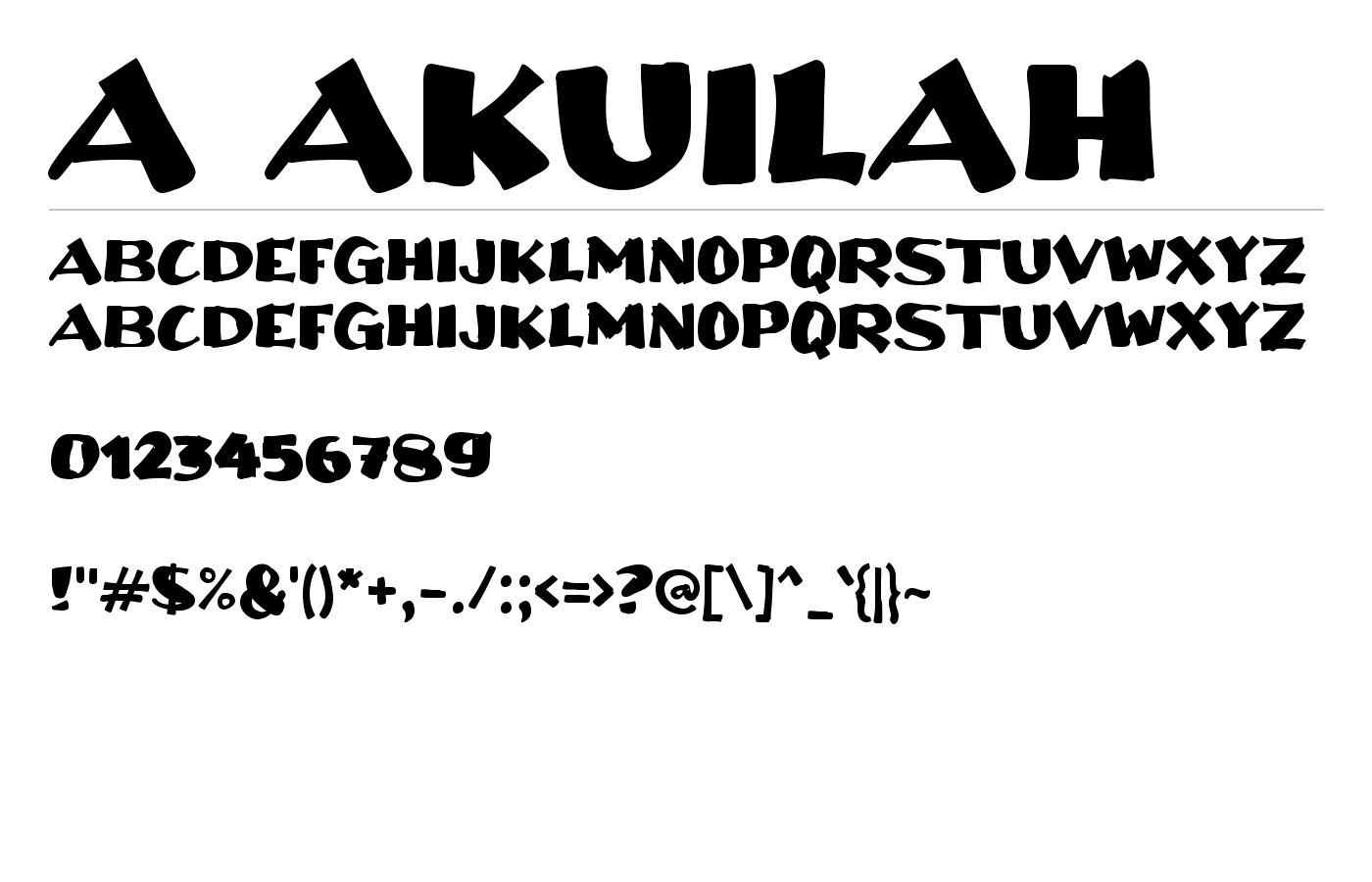
Akuilah is a bold, playful display font with a hand-drawn, slightly irregular style that gives it a lively and informal personality. Its thick strokes, all-caps design, and unique letter shapes make it perfect for eye-catching headlines, posters, and creative branding where a fun and energetic tone is desired. This font works well in designs that aim to stand out with a quirky, approachable vibe.
a Akuilah Font